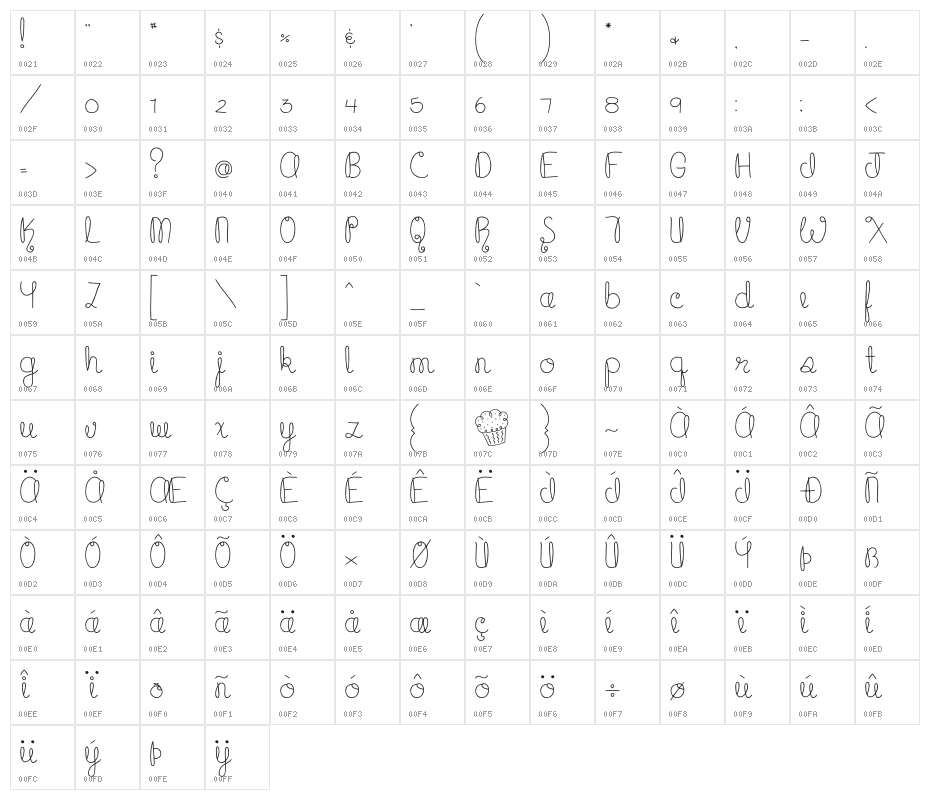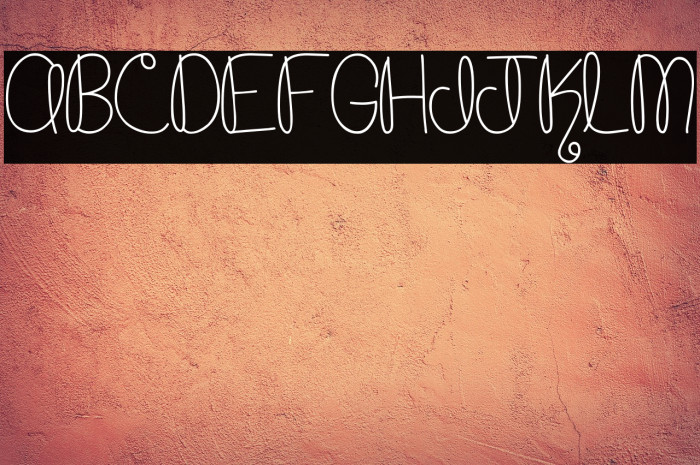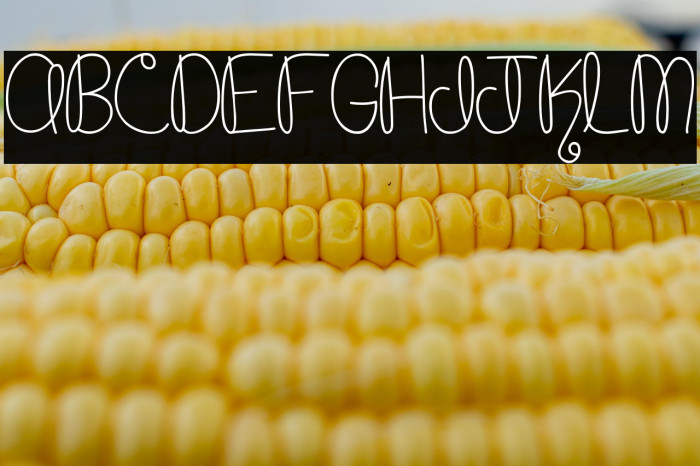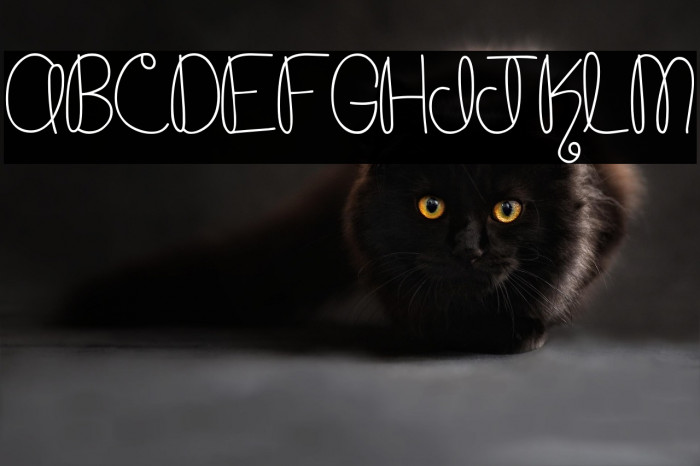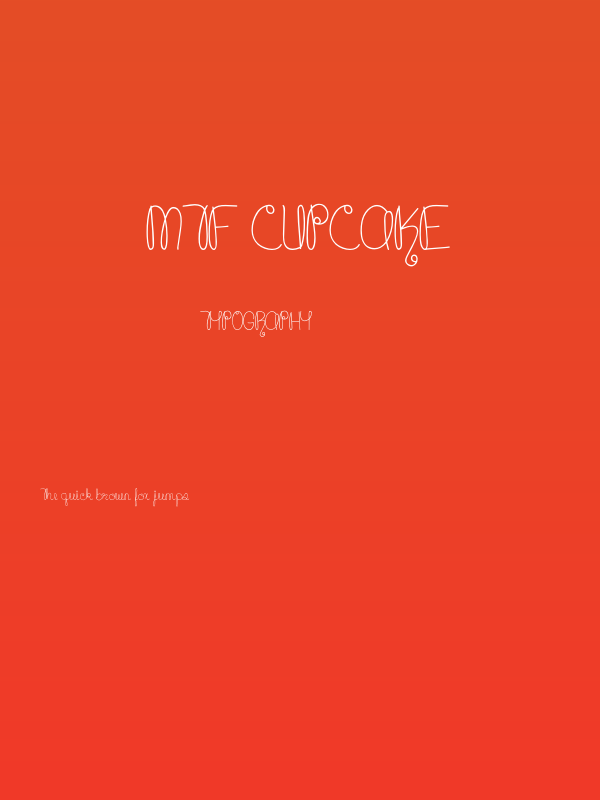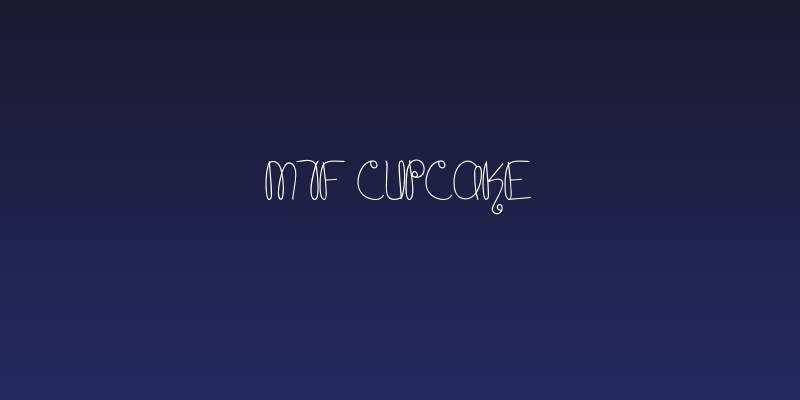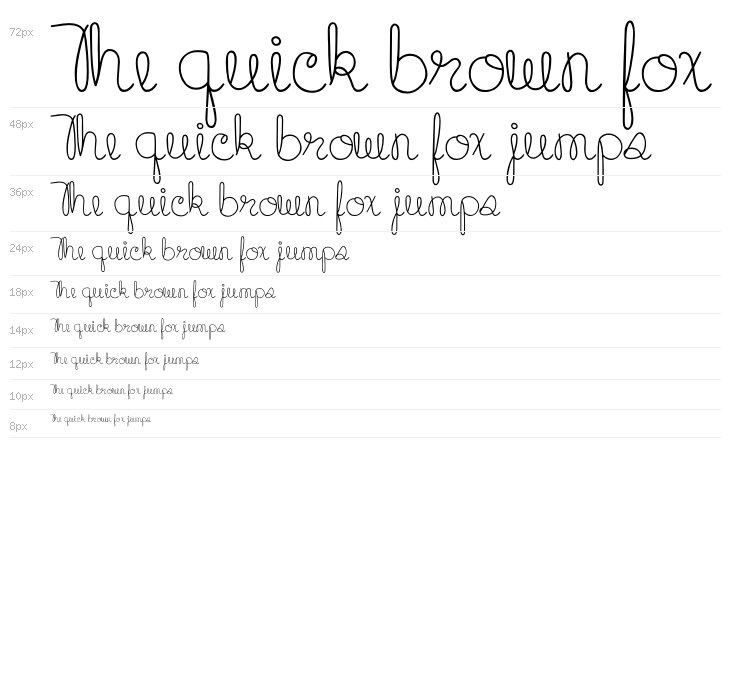
MTF Cupcake Font
MTF Cupcake Description
This font features a playful and whimsical design with a handwritten style. The characters are crafted with smooth, flowing lines that create a sense of movement and elegance. The uppercase and lowercase letters maintain a consistent style, with rounded edges and a slight slant, giving them a casual yet sophisticated appearance. The numerals and special characters are designed to match the overall aesthetic, ensuring a cohesive look across all elements. This font is perfect for adding a touch of charm and personality to any project.
| Proposed Projects | Ideal for greeting cards, invitations, children's books, and playful branding projects. |